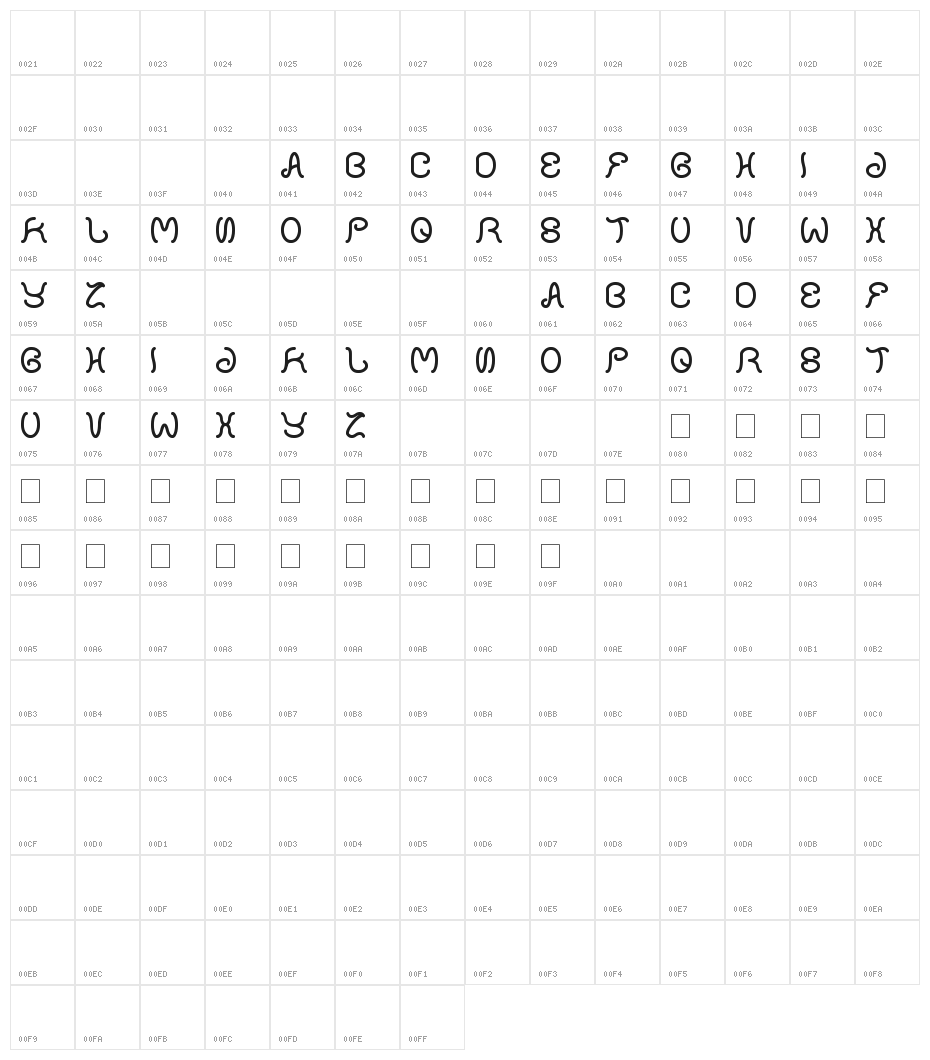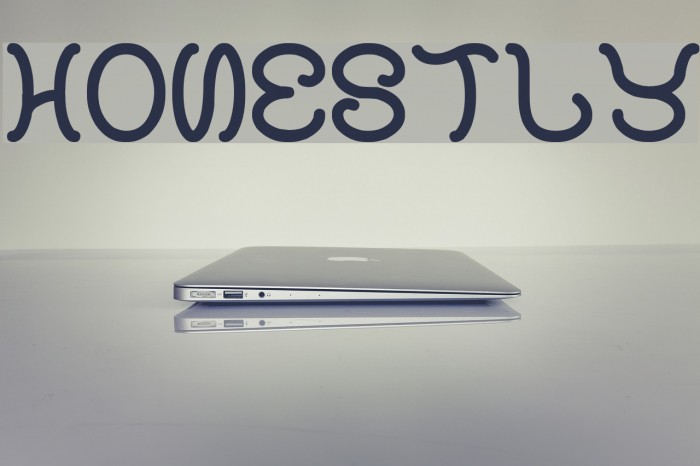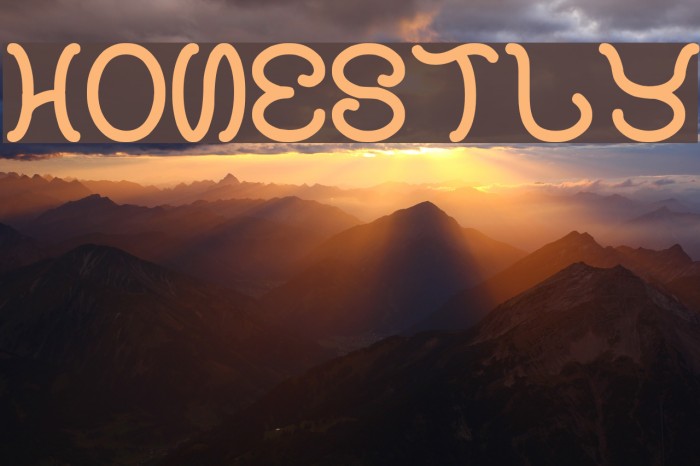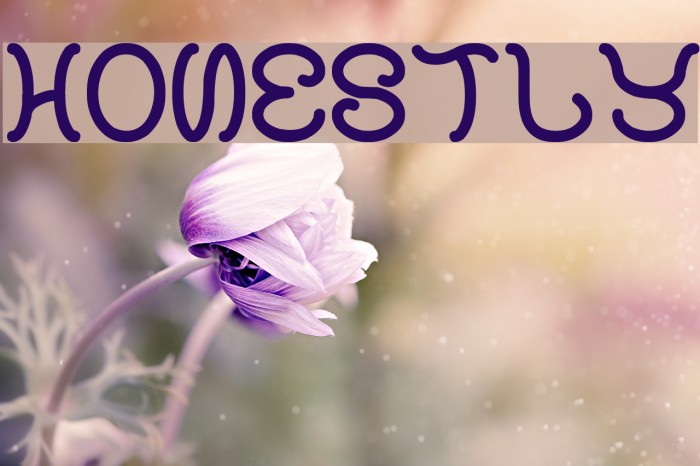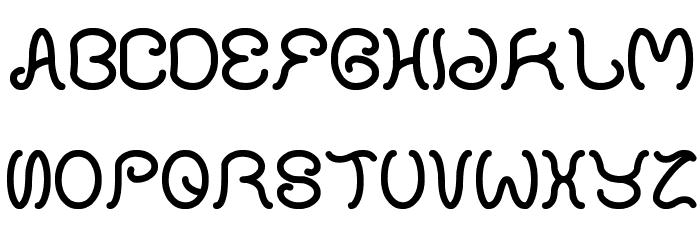
honestly Font
honestly Description
This font features a playful and whimsical design with rounded, flowing strokes that give it a unique and artistic appearance. The characters are bold and have a consistent thickness, creating a harmonious look across the alphabet. The uppercase letters exhibit a distinct style with curves and loops that add a touch of creativity. The lowercase letters maintain the same playful aesthetic, ensuring readability while adding a decorative flair. The font's overall appearance is both modern and artistic, making it suitable for projects that require a fun and engaging typeface.
| Overall Style | Playful, Artistic |
| Proposed Projects | Ideal for children's books, creative branding, playful posters, and artistic invitations. |